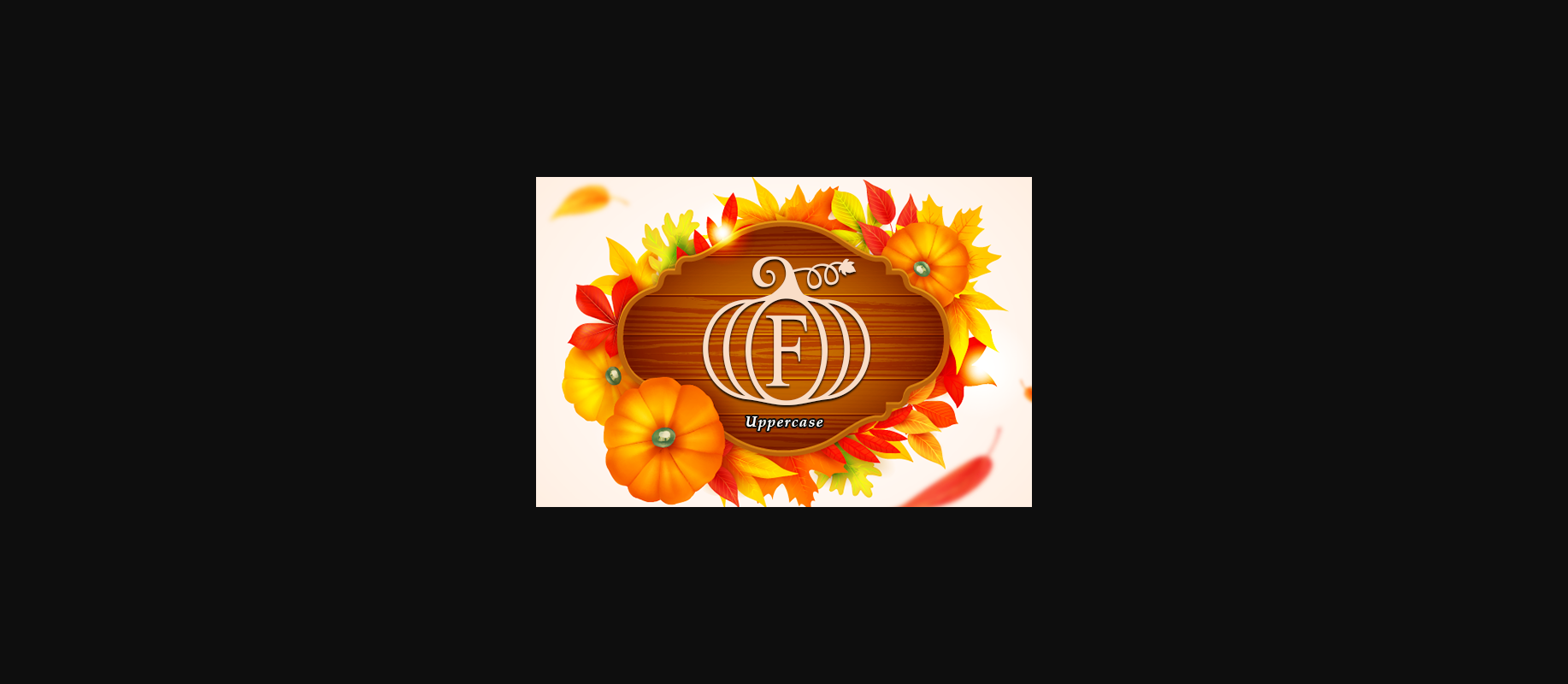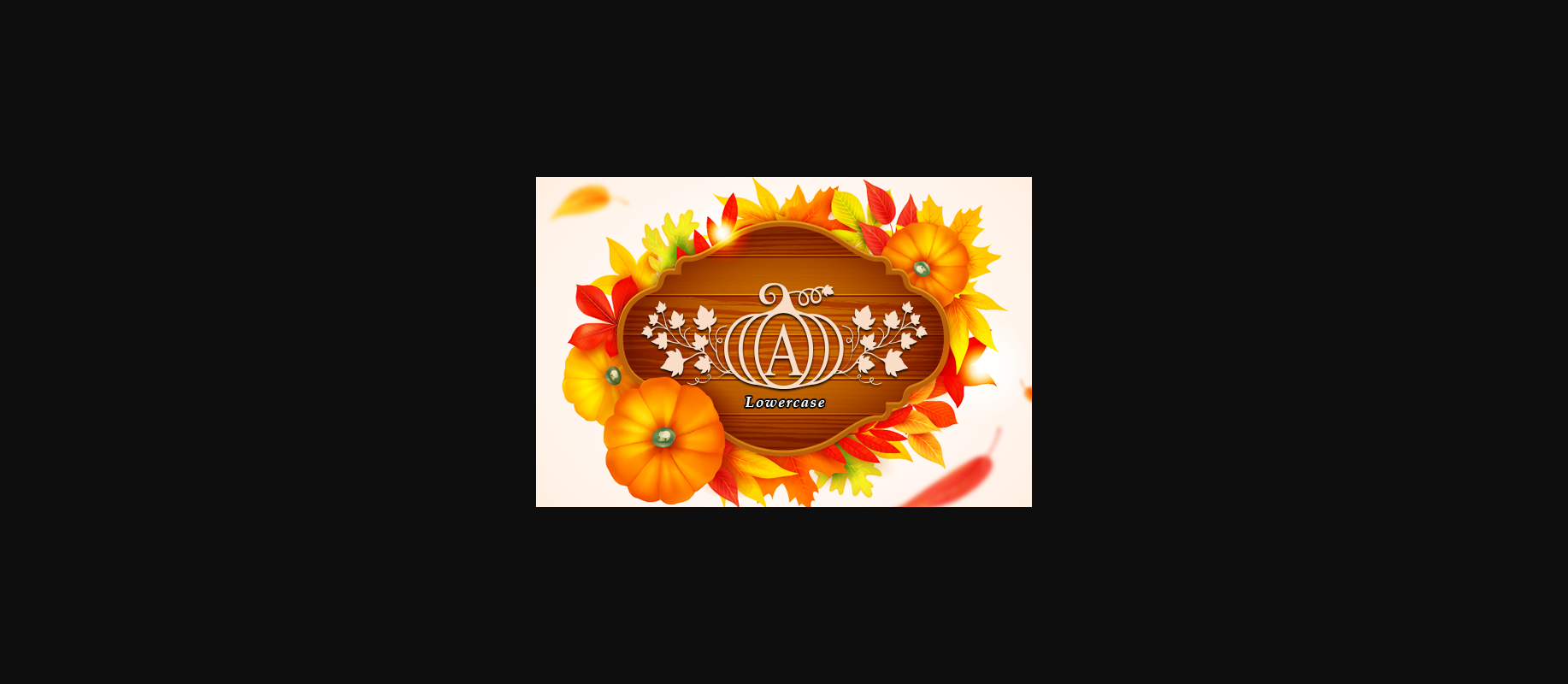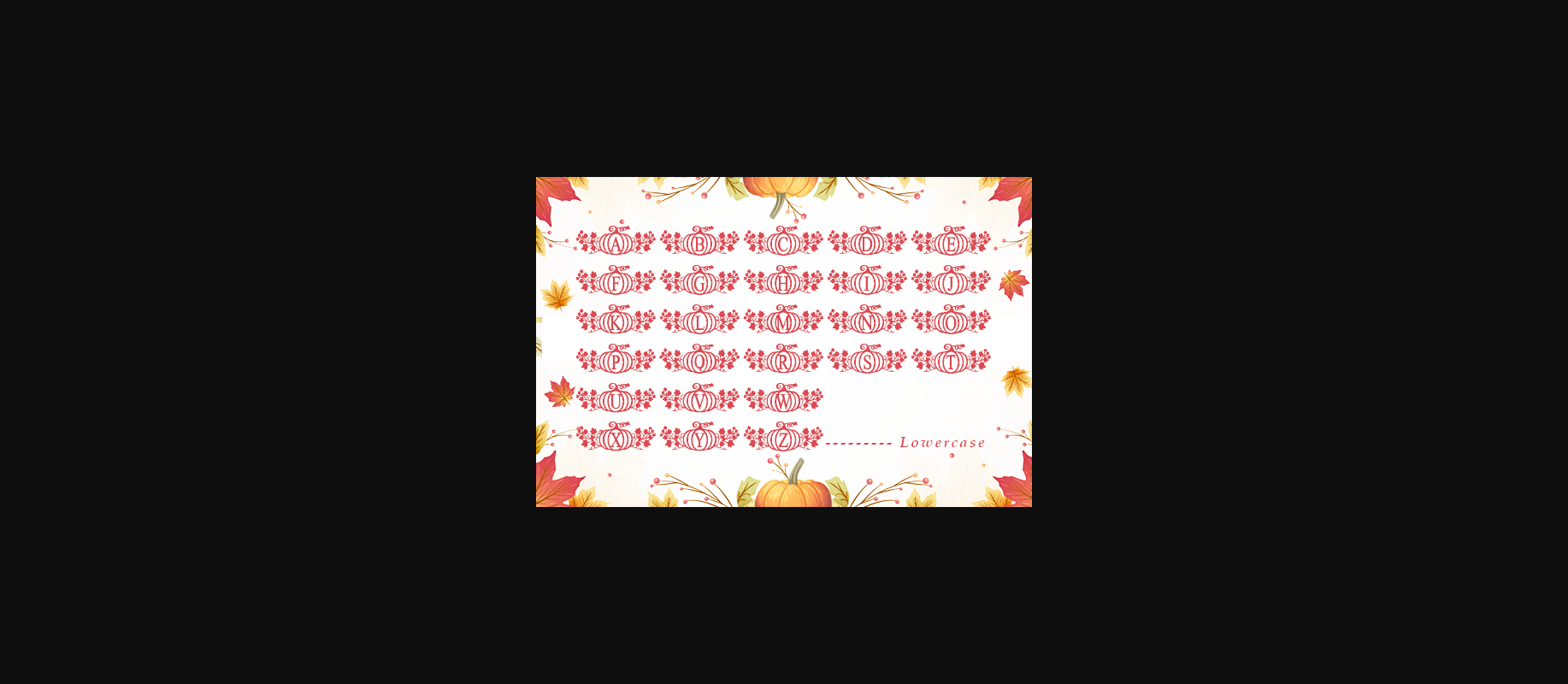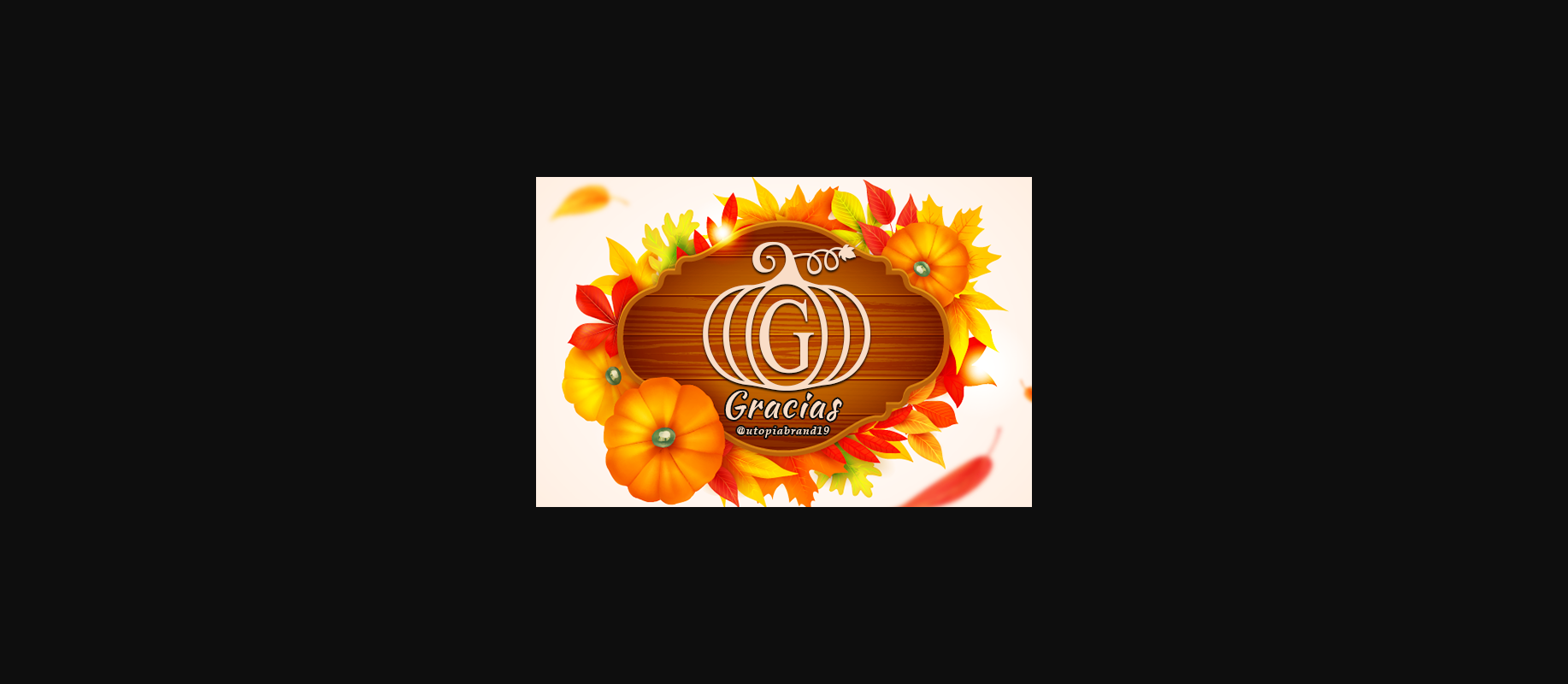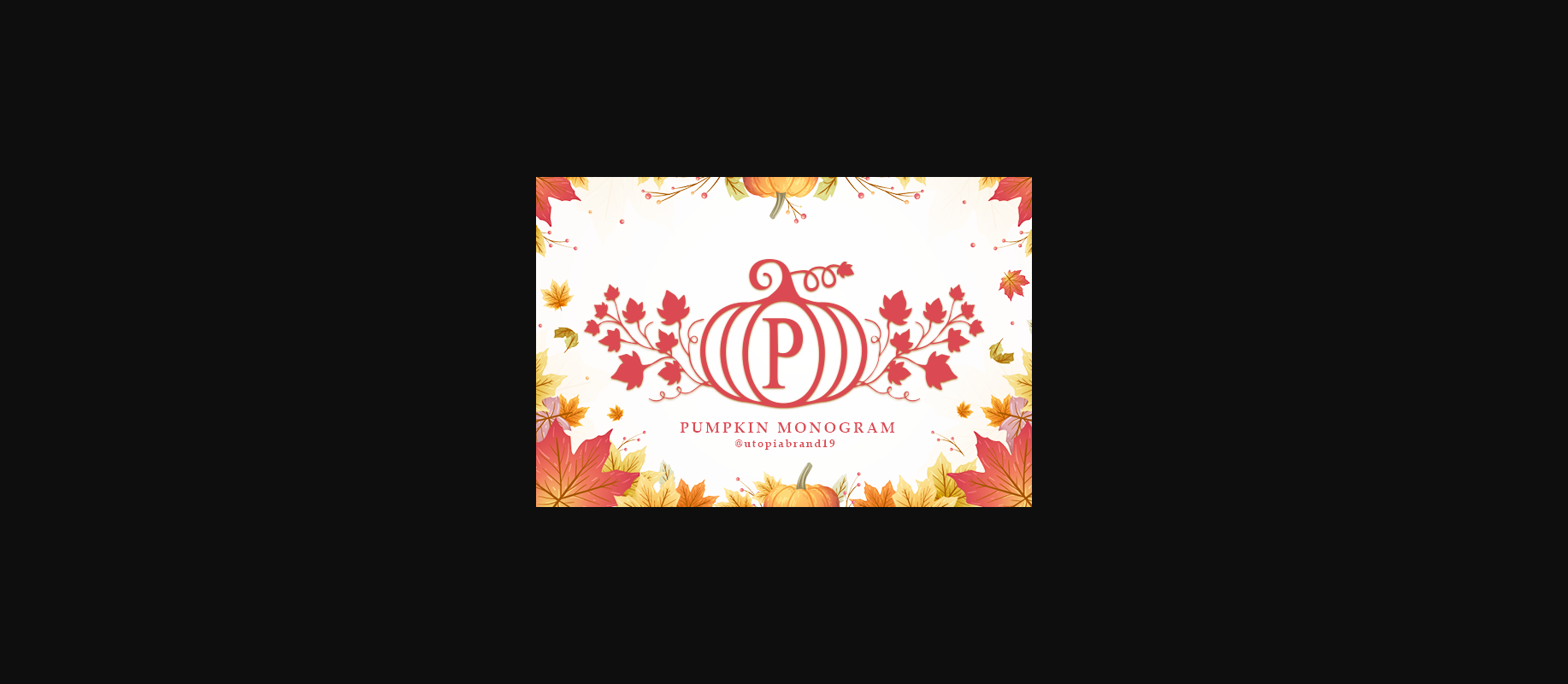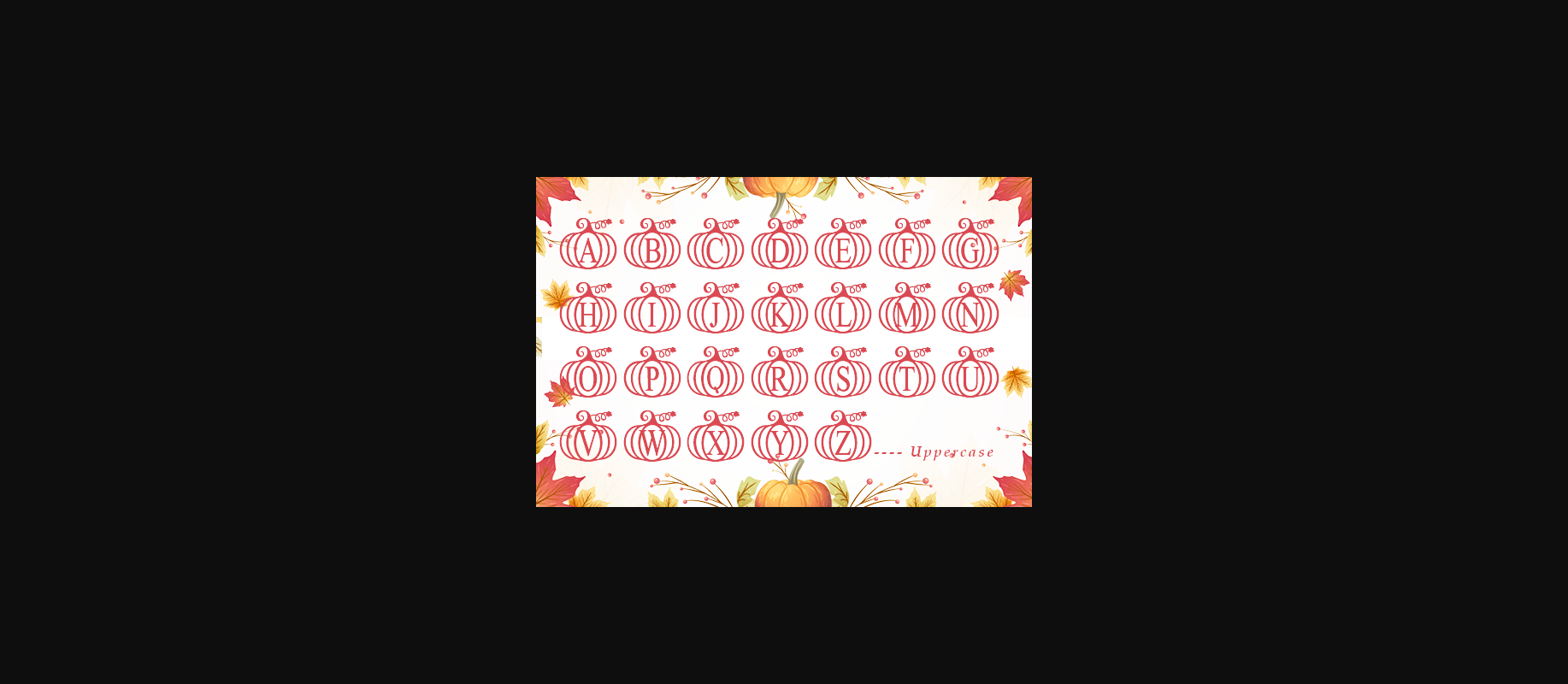
HomeDecorative FontsPumpkin Monogram Font Decorative Fonts Pumpkin Monogram Font FacebookXPinterestWhatsApp 1 of 8 ... Pumpkin Monogram Font Poster 2... Pumpkin Monogram Font Poster 3... Pumpkin Monogram Font Poster 4... Pumpkin Monogram Font Poster 5... Pumpkin Monogram Font Poster 6... Pumpkin Monogram Font Poster 7... Pumpkin Monogram Font Poster 8... About Pumpkin Monogram Font Pumpkin Monogram is a charming decorative font. Fall in love with its authentic feel and use it to create gorgeous invitations, beautiful stationary art, eye-catching social media posts, and cute greeting cards. DOWNLOAD NOW People also explored Catch You Font Shella Font Zesty Orange Gatigal Font Cinderella Font Jager Signature Font Wowsers Font Sentausa Font Cafune Font 276 0 TagsPumpkin Monogram Font Previous articleWitch FontNext articleSania Monogram Font LEAVE A REPLY Cancel reply Comment: Please enter your comment! Name:* Please enter your name here Email:* You have entered an incorrect email address! Please enter your email address here Website: Save my name, email, and website in this browser for the next time I comment. Personal Use Free Panaroe Personal Use Free Read more about this font Elliane Personal Use Free Read more about this font Mounets Personal Use Free Read more about this font Eric”s Personal Use Free Read more about this font BLOG Using Fonts in Digital Marketing: Tips to Strengthen Your Brand Identity In the realm of digital marketing, every visual element plays a crucial role in shaping a brand's identity, and fonts are no exception. The... Elegant Wedding Invitation Fonts – Handwritten & Script Fonts Free vs Paid Fonts: Why Investing in Premium Fonts Is Worth It To increase your work productivity, choose the most readable fonts.